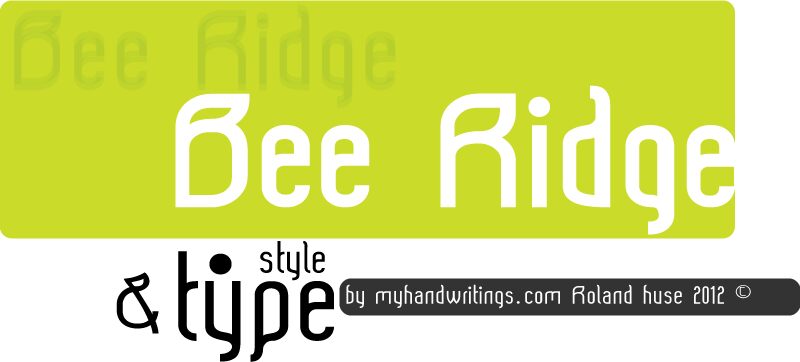
Bee Ridge by Roland Huse is a free old-school display font with a sleek retro-futurist profile. Its mostly even strokes bend into broad curves and squared turns, with open sections and abrupt breaks cutting through the letter shapes. The tall, spare forms look mechanical and carefully controlled.
Technology and space-age themes make it especially suited to game interfaces, electronic music artwork, and event posters with a vintage-future angle. Its circuit-like bends can echo diagrams or abstract machinery in editorial illustrations and science-fiction packaging, turning the lettering into part of the depicted equipment.